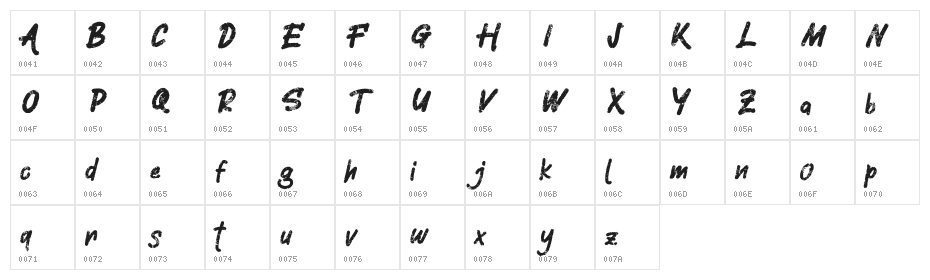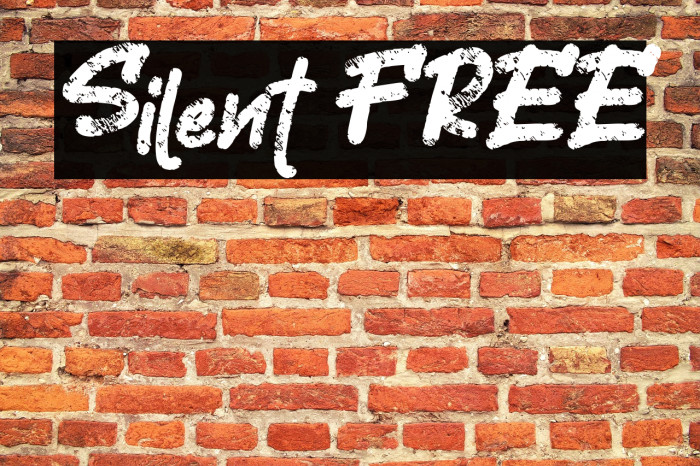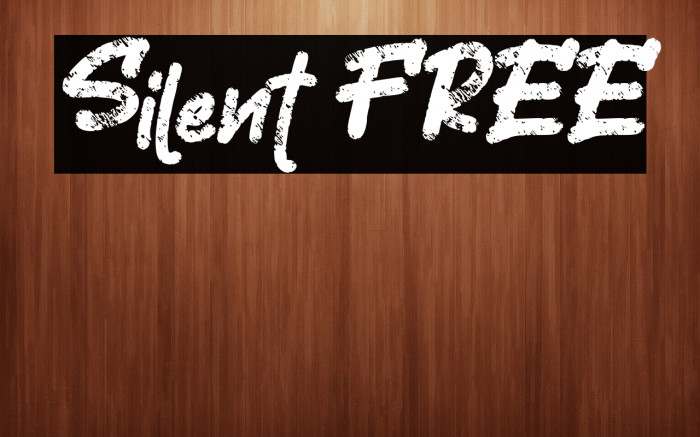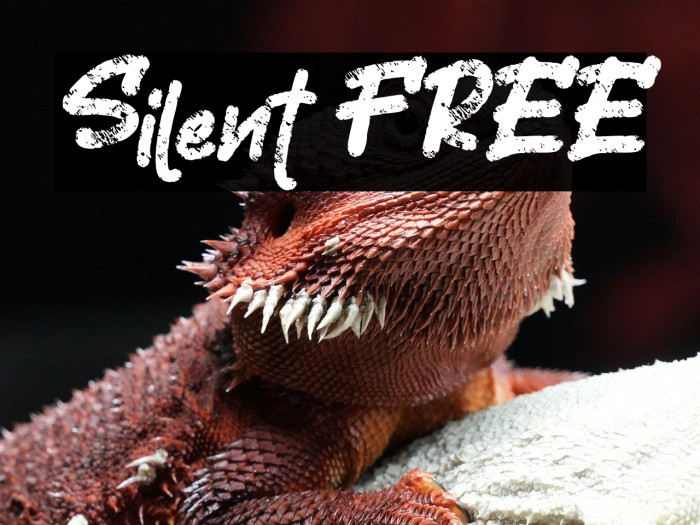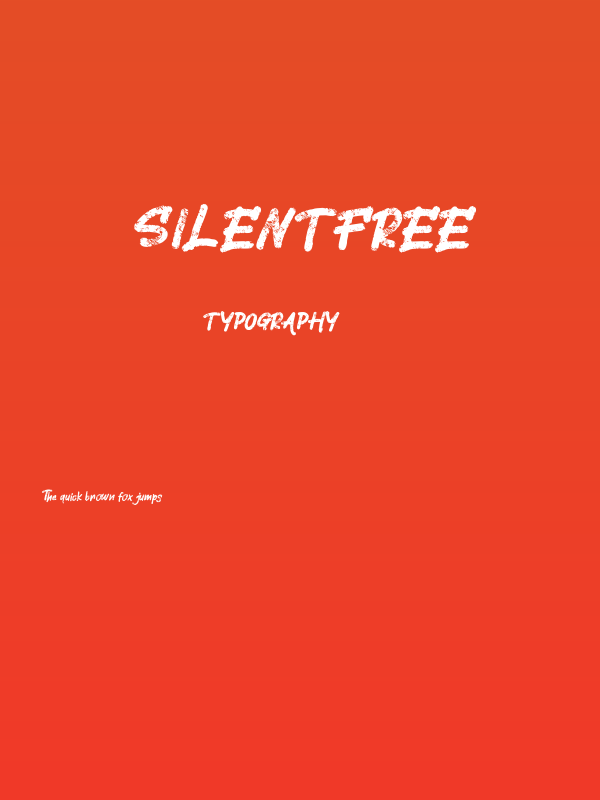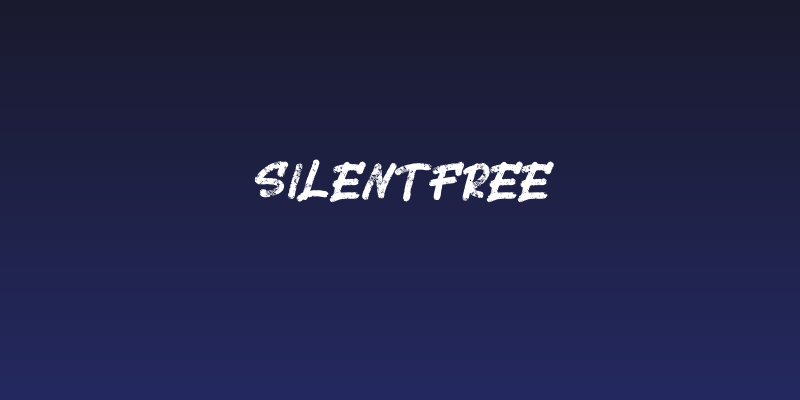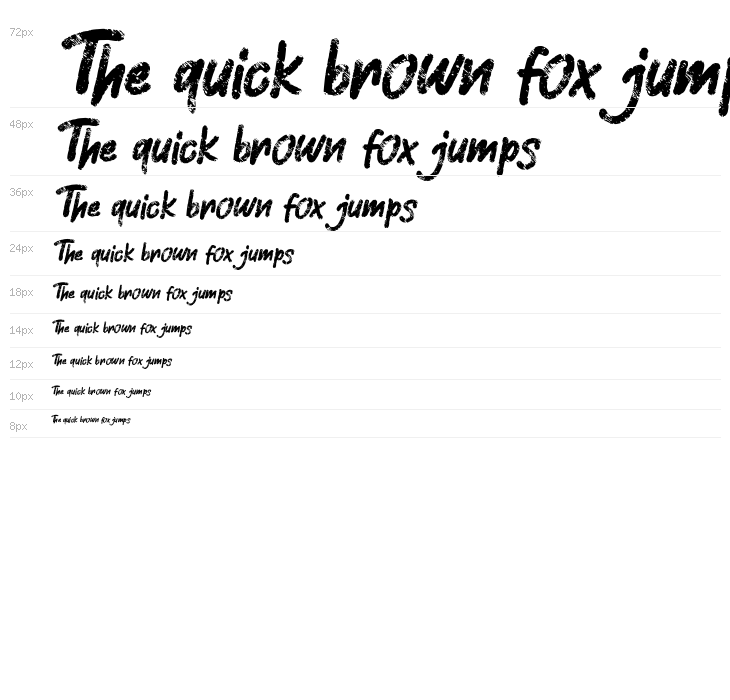
Silent FREE Font
Silent FREE Description
This font features a bold, textured style that mimics the appearance of brush strokes or paint splatters. The characters are slightly slanted, giving a dynamic and energetic feel. The uppercase and lowercase letters maintain a consistent design, with rounded edges and a playful, artistic flair. The texture adds a rugged, handcrafted look, making it ideal for projects that require a creative and informal touch. The font's unique style is eye-catching and suitable for designs that aim to stand out.
| Overall Style | Artistic, Energetic, Creative |
| Proposed Projects | Ideal for posters, artistic branding, social media graphics, and event invitations. |